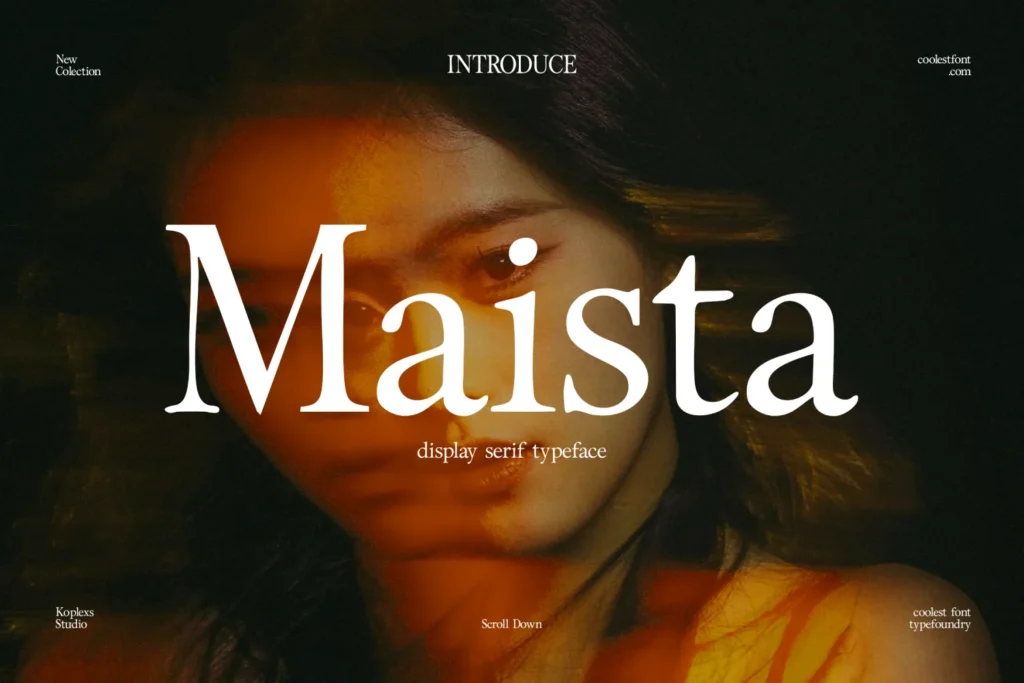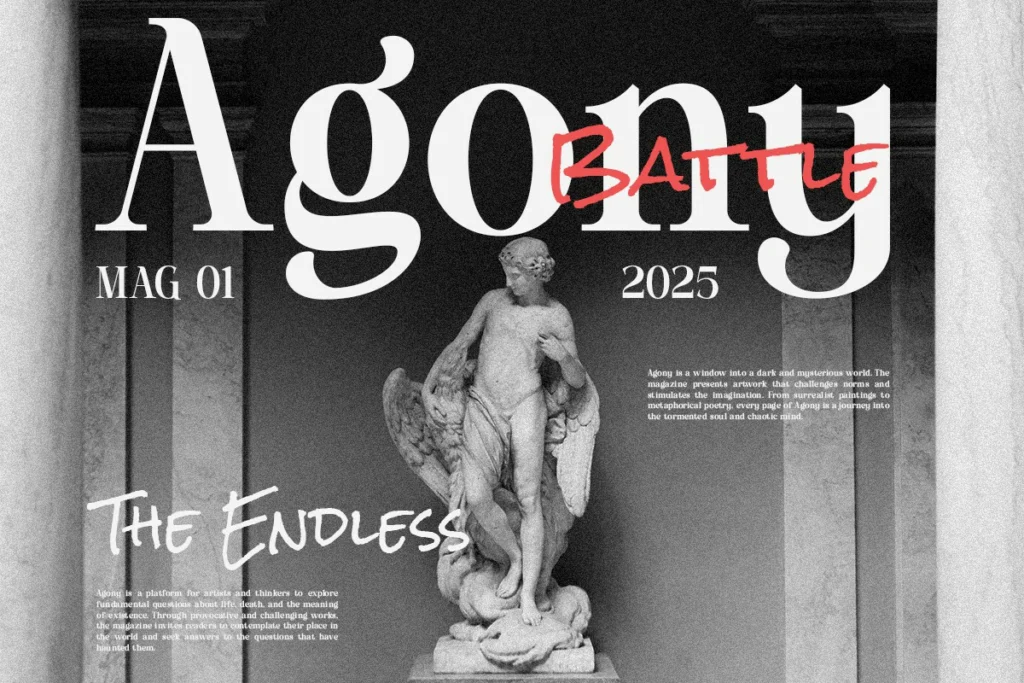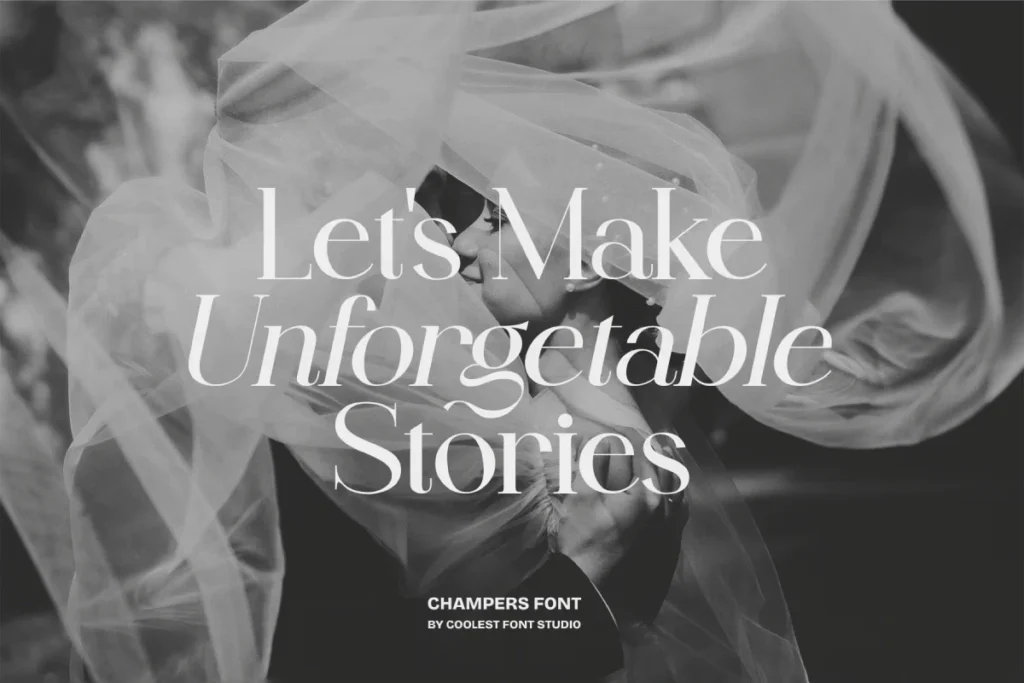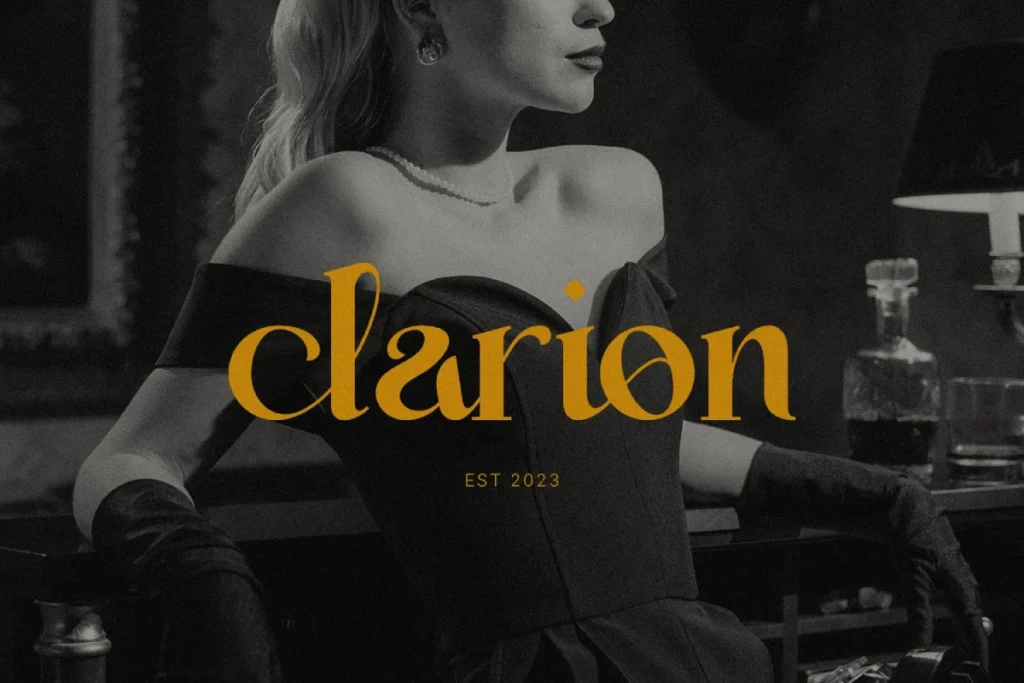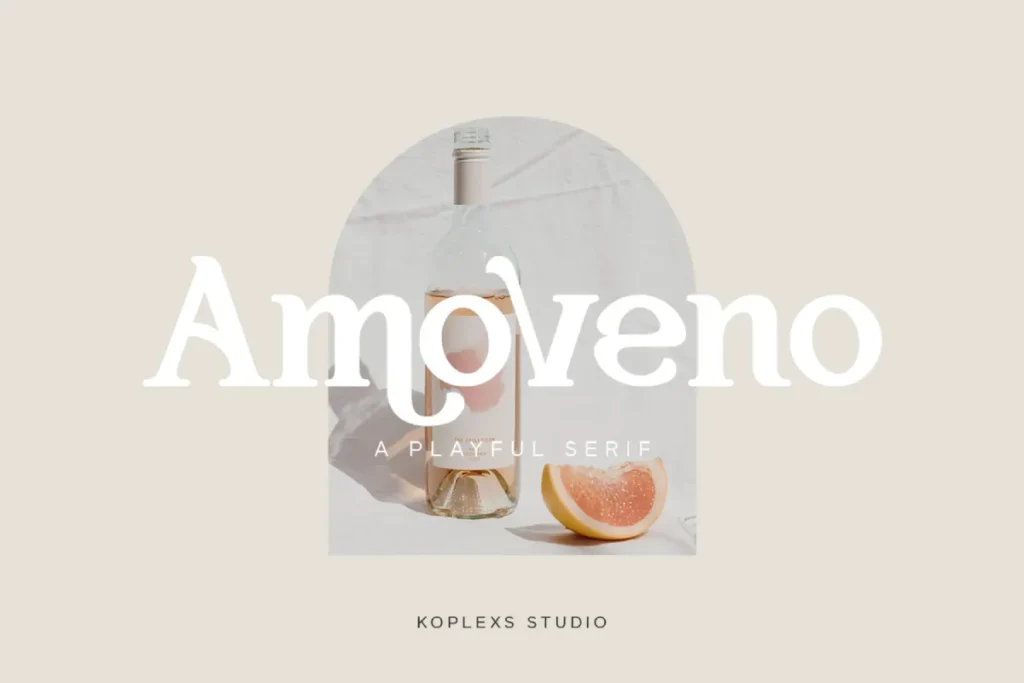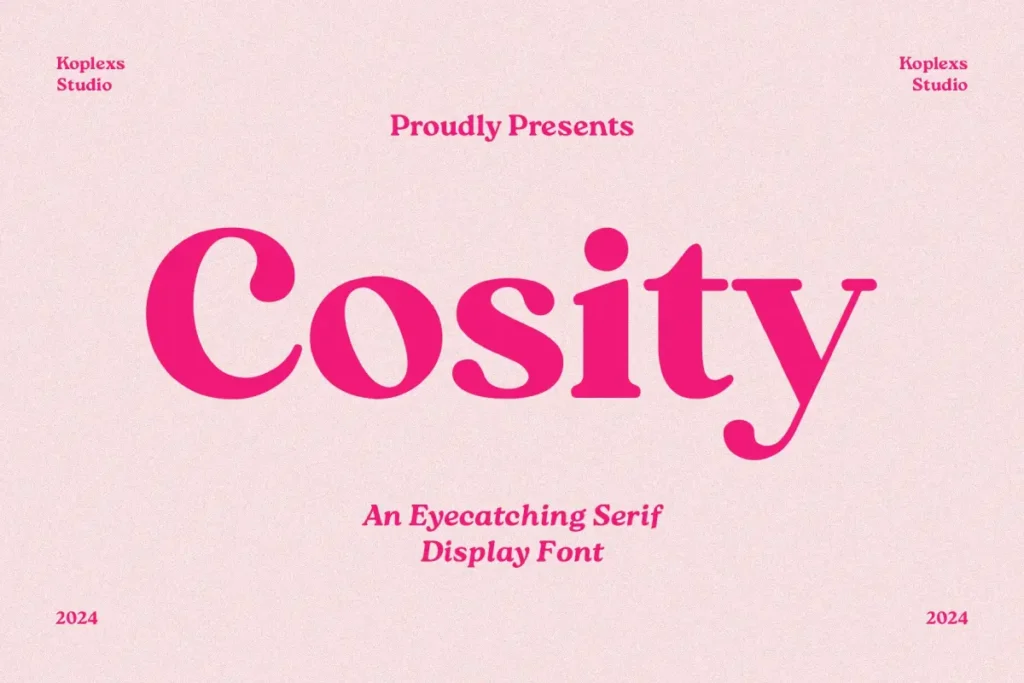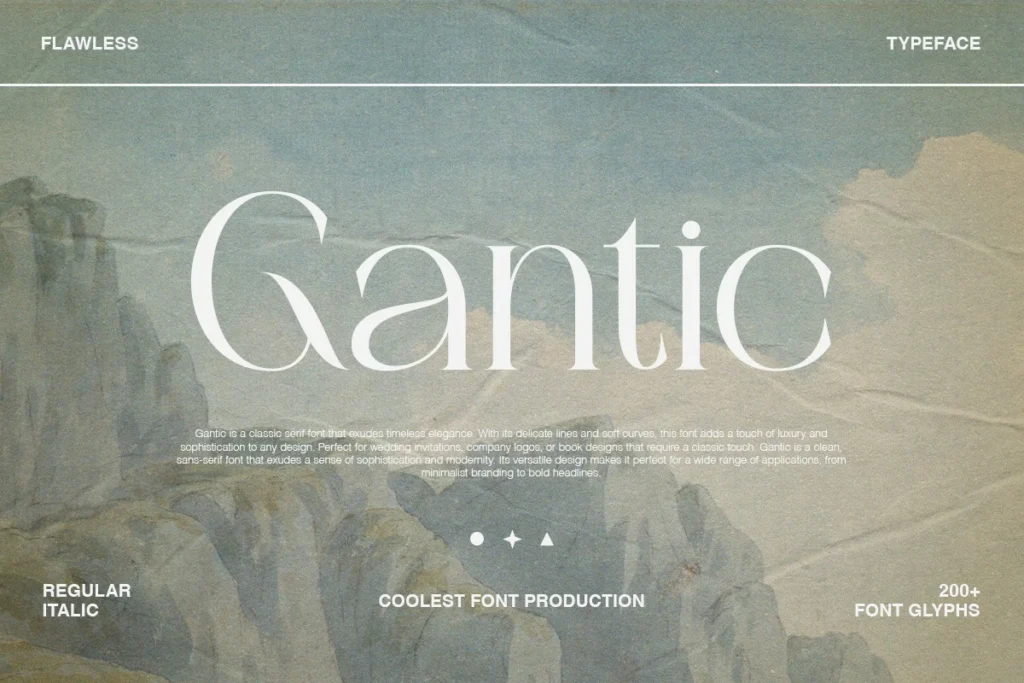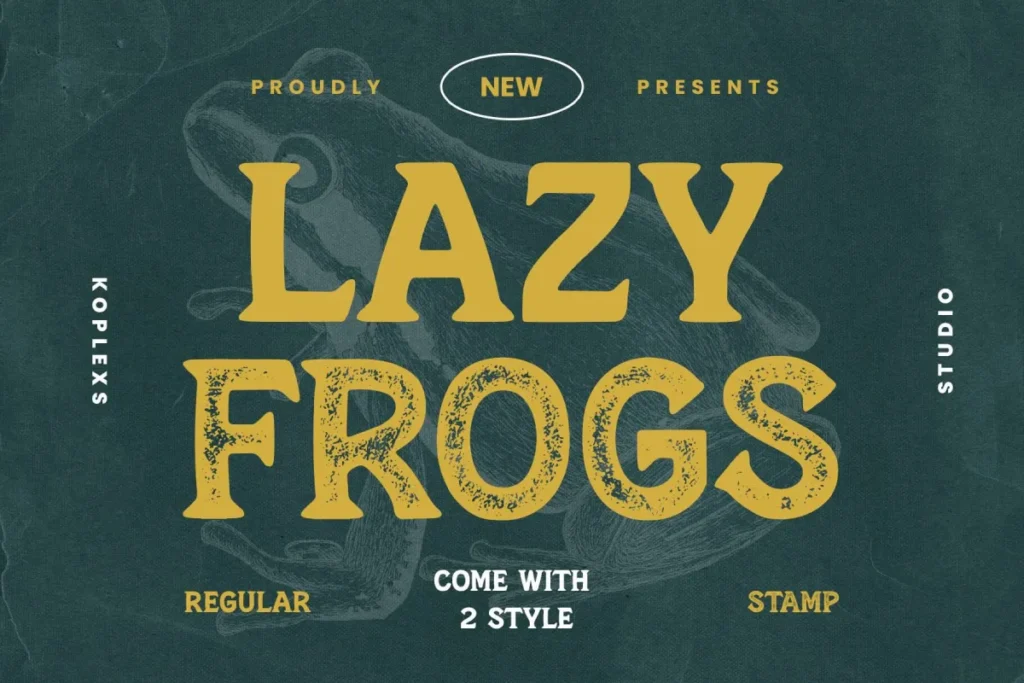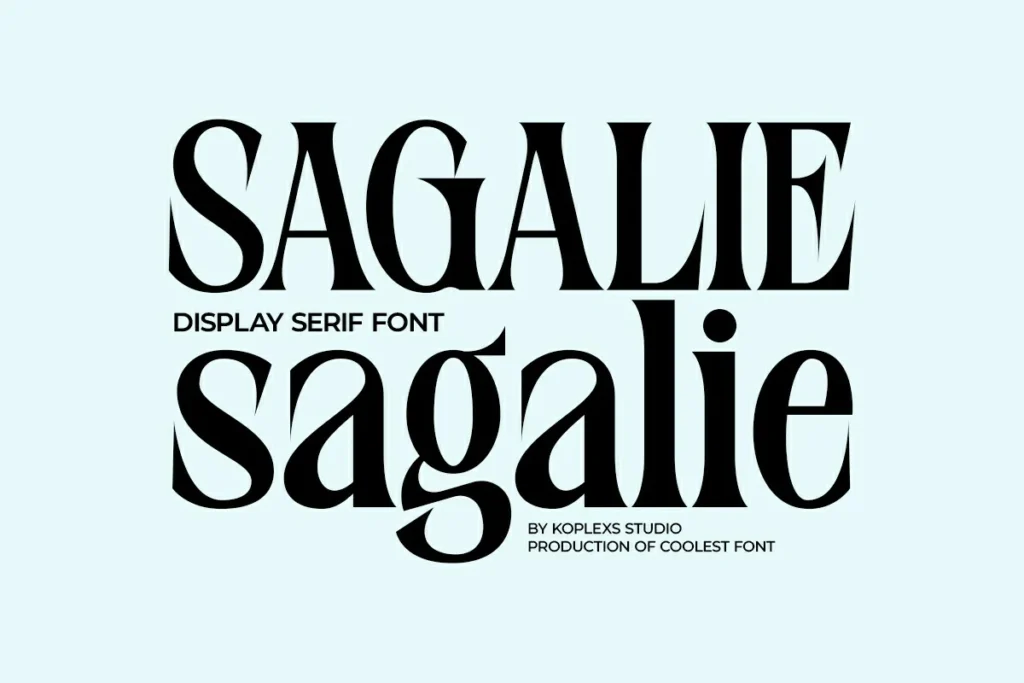
Have you ever looked at a headline and instantly felt luxury, confidence, or authority before reading a single word?
That reaction is not accidental.
In today’s design landscape, serif display fonts play a powerful psychological role. They do not simply show text. They shape perception, emotion, and brand memory at first glance. From high-end fashion brands to digital publications and startup landing pages, serif display fonts are becoming a defining element of modern visual identity.
In this article, you will explore why serif display fonts matter, how they differ from a classic serif font or a general display font, and why the modern serif font revival is influencing branding, UX, and digital storytelling more than ever.
The Rise of Serif Display Fonts in Modern Design
What Defines a Serif Display Font
A serif display font is designed primarily for large sizes such as headlines, hero text, logos, and editorial titles.
Unlike body text serif fonts, display serifs are more expressive and dramatic.
Key characteristics include:
- High contrast strokes between thick and thin lines
- Decorative or exaggerated serifs
- Strong visual rhythm that draws attention
- Personality-first design, not long reading comfort
In simple terms, a serif display font is meant to be seen, not skimmed.
How It Differs from a Traditional Serif Font
While both belong to the serif font family, their roles are different.
| Aspect | Serif Font | Serif Display Font |
|---|---|---|
| Primary use | Body text | Headlines and branding |
| Readability | Optimized for long reading | Optimized for impact |
| Style | Neutral and consistent | Expressive and bold |
| Emotional tone | Subtle and classic | Dramatic and memorable |
A traditional serif font supports reading. A serif display font defines identity.
Why Serif Display Fonts Feel So Powerful
The Psychology Behind Serif Typography
Typography affects how people feel before they think.
According to multiple branding studies referenced by design analysts at Forbes, serif typography is often associated with:
- Trust and authority
- Heritage and expertise
- Premium value and credibility
When amplified through display proportions, these signals become stronger and more emotional.
That is why many luxury brands, editorial platforms, and creative startups rely on serif display fonts to create instant emotional alignment.
Serif Display Fonts and Visual Memory
Humans remember shapes faster than words.
Because serif display fonts have unique letterforms and high contrast details, they:
- Improve brand recall
- Create distinctive visual signatures
- Make headlines feel intentional and crafted
This is especially important in crowded digital spaces where attention spans are short.
The Modern Serif Font Renaissance
Why Modern Design Is Returning to Serifs
For years, sans serif dominated digital interfaces. But visual fatigue has changed preferences.
Modern audiences now crave:
- Warmth over sterility
- Character over neutrality
- Authenticity over minimal sameness
A modern serif font offers a perfect balance between tradition and innovation.
Designers are blending classic serif structures with:
- Clean spacing
- Minimalist proportions
- Digital-first optimization
The result is a new generation of serif display fonts that feel both timeless and contemporary.
Digital Compatibility Is No Longer a Problem
One common myth is that serif fonts do not work well on screens.
That is no longer true.
Modern serif display fonts are:
- Designed for high-resolution screens
- Optimized for responsive layouts
- Carefully hinted for clarity at large sizes
When used correctly, they enhance UX rather than hurt it.
Where Serif Display Fonts Perform Best
Branding and Logo Design
In branding, first impressions matter more than explanations.
Serif display fonts are ideal for:
- Fashion and luxury brands
- Editorial and publishing platforms
- Creative agencies and personal brands
- Premium product packaging
They signal confidence without shouting.
Editorial and Content Platforms
Many modern publications use serif display fonts to:
- Create hierarchy in headlines
- Add authority to long-form content
- Balance visual rhythm across layouts
This approach increases perceived content quality and reading engagement.
Marketing and Campaign Visuals
When combined with strong imagery, serif display fonts:
- Elevate campaign storytelling
- Improve message clarity
- Add emotional depth to short copy
This is why they are often seen in hero sections and ad creatives.
What is the difference between a display font and a serif display font?
A display font focuses on decoration in general, while a serif display font specifically uses serif structures to convey elegance, authority, and tradition.
Can serif display fonts improve branding?
Absolutely. They help brands appear more credible, premium, and emotionally engaging when used consistently.
Should serif display fonts be used for body text?
No. They are best reserved for headlines and emphasis, not long paragraphs.